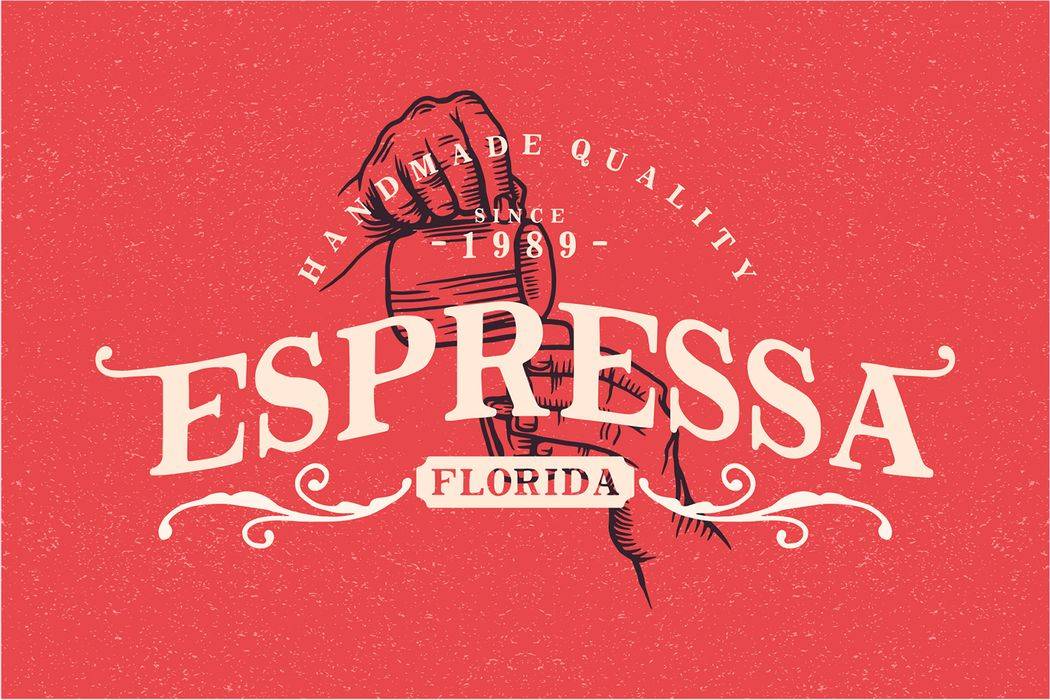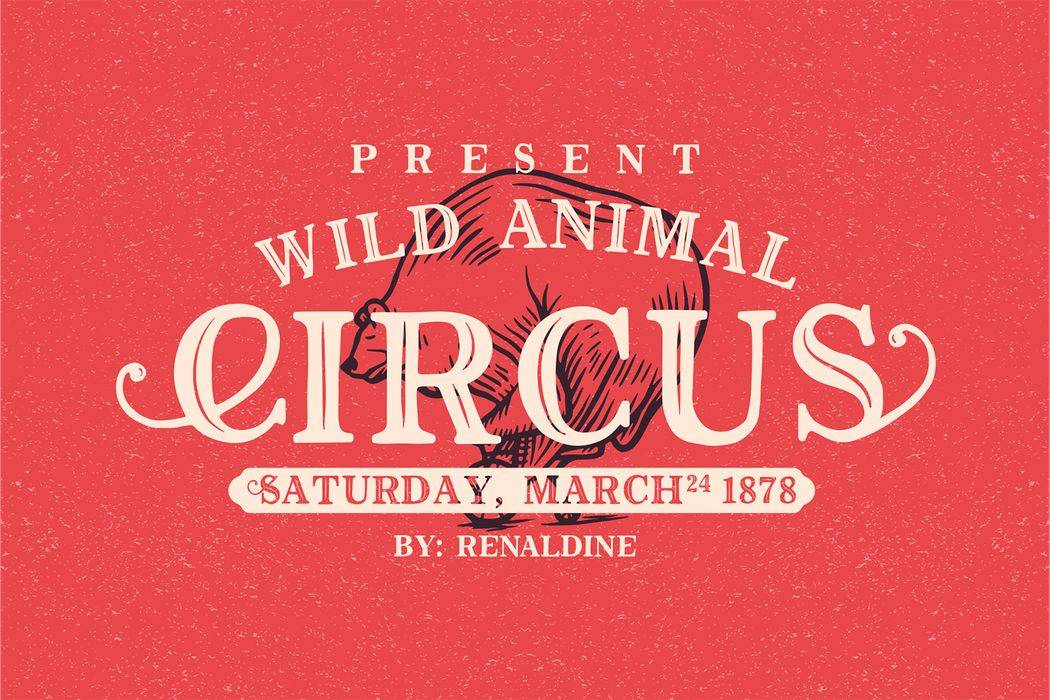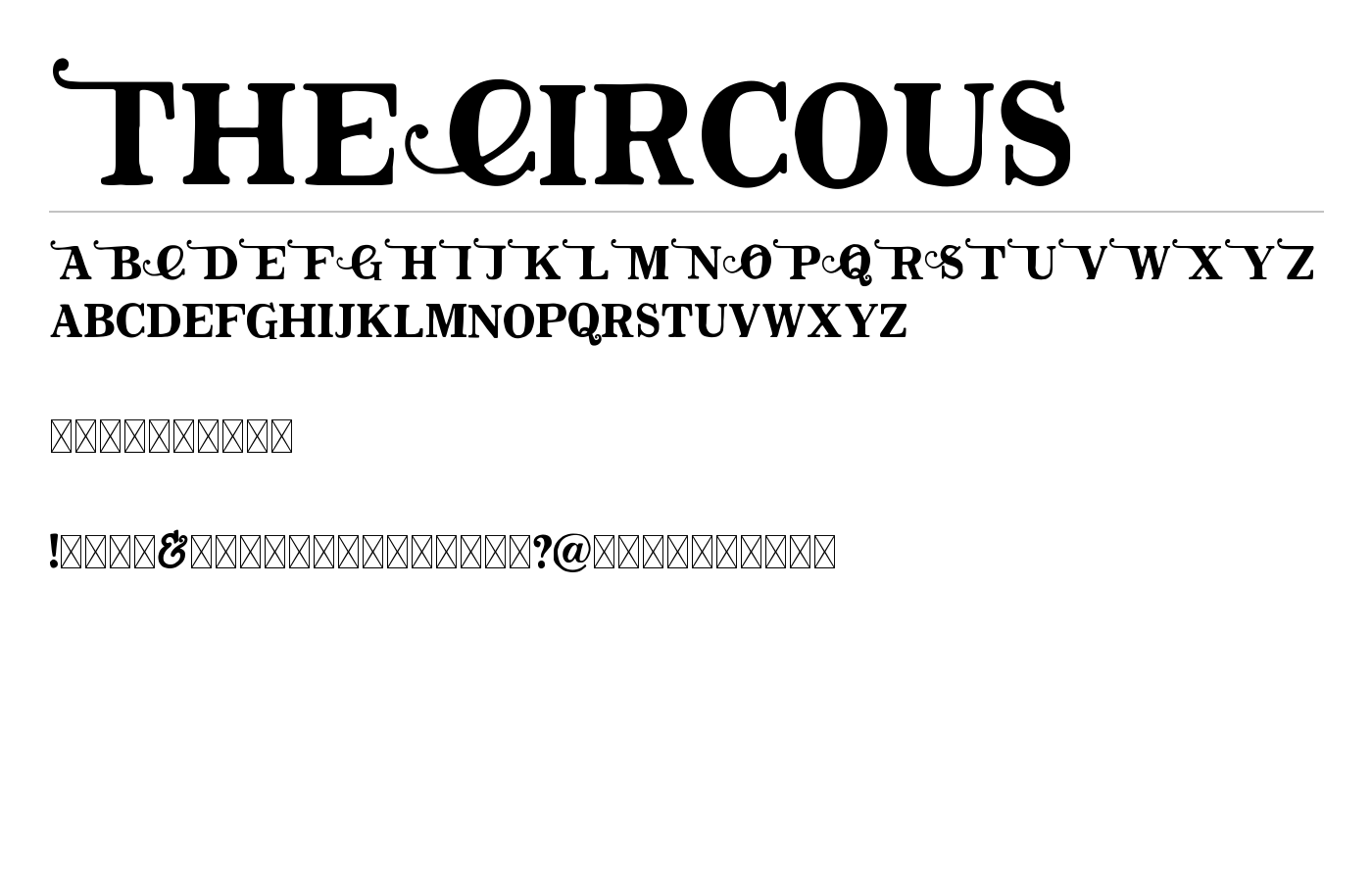
The Circous Font is a bold serif typeface with a playful vintage flair, characterized by its strong thick and thin stroke contrast and unique ornamental swirls on certain letters that add a whimsical, circus-inspired personality. Its upright, condensed letterforms feature single-story shapes and bracketed serifs, making it perfect for eye-catching headlines, posters, and branding that needs a nostalgic yet lively touch. This font works best where a dramatic, fun, and retro vibe is desired, such as event posters, entertainment branding, or decorative titles.
The Circous Font
About The Circous Font